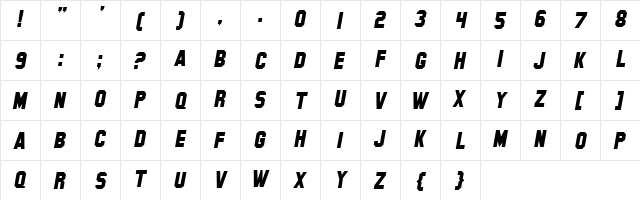
Hollywood Hills Italic
Design Context for Hollywood Hills Typeface
Hollywood Hills taps into classic Western woodtype traditions — bold, characterful, and impossible to ignore. Its italic angle brings a sense of urgency and motion to the letterforms.
A natural fit for craft spirits, ranch branding, rodeo events, and Americana-inspired design work.
Font Pairing: Combine Hollywood Hills with a simple slab or neutral sans — period-accurate companions reinforce the vintage feel without competing for attention.
Pro Tip: Use Hollywood Hills for short, impactful bursts of text — it shines in poster headlines and product names rather than extended copy.